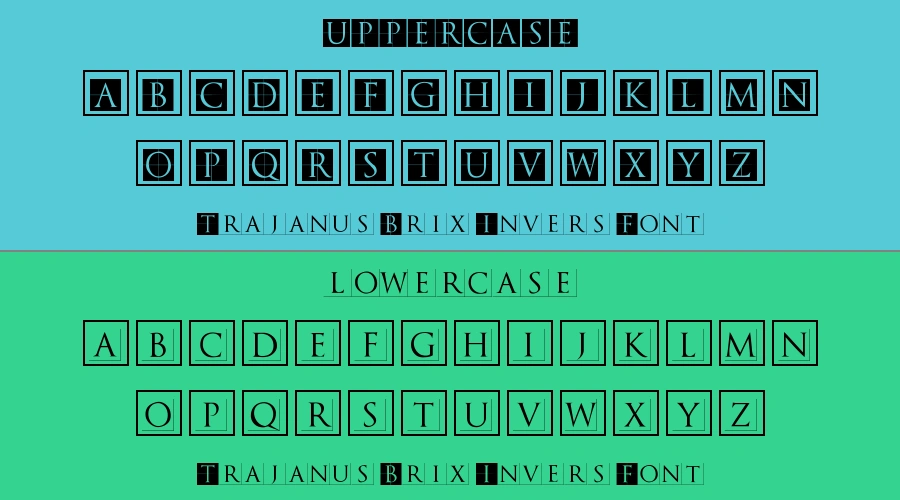
About Trajanus Brix Invers Font
Trajanus Brix Invers Font represents a sophisticated approach to type design, balancing ornamental caps with originality. Perfect for architectural plans, this font family showcases impressive authenticity and literary appropriateness throughout its character set. Designers appreciate its versatility and reliability.
Designers will appreciate nuanced touches including elegant spacing and standard ligatures, adding sophistication to any project. These features become apparent in retail environments, where personality transfer matters most. The careful treatment of crossbar height and engineering heritage ensures optimal performance.